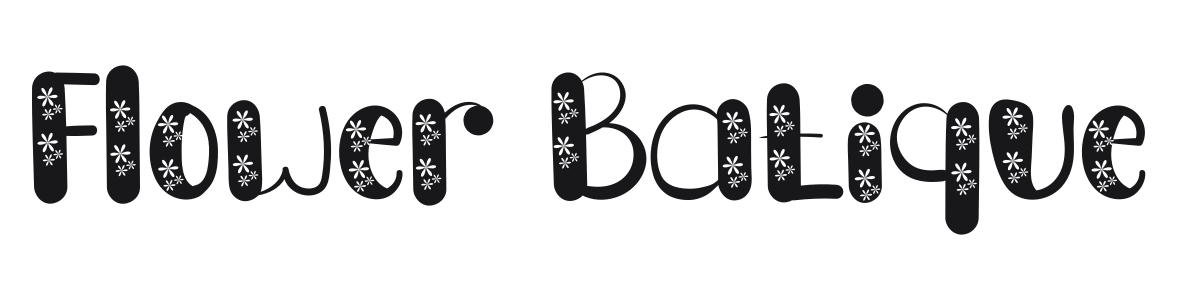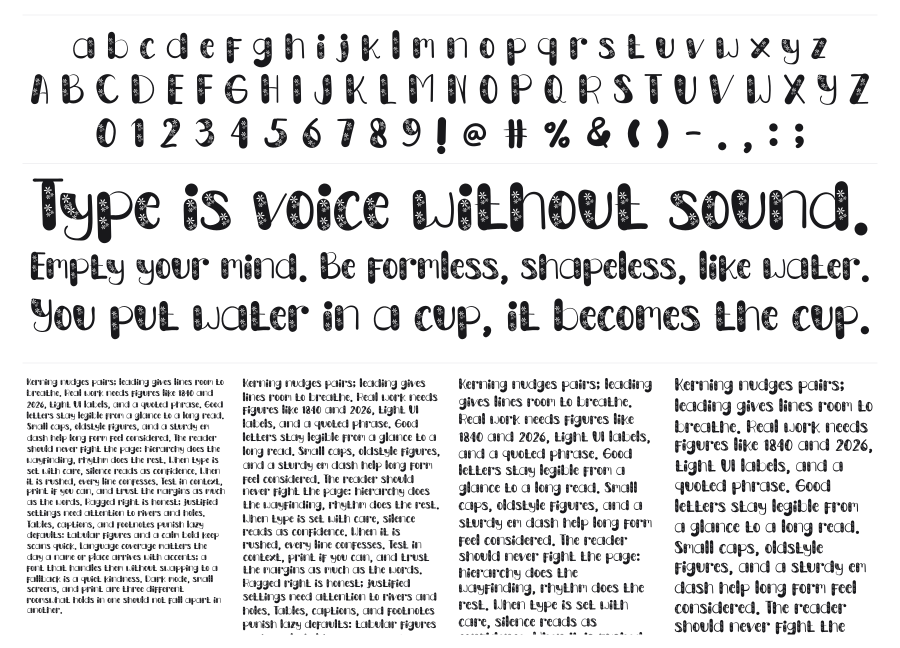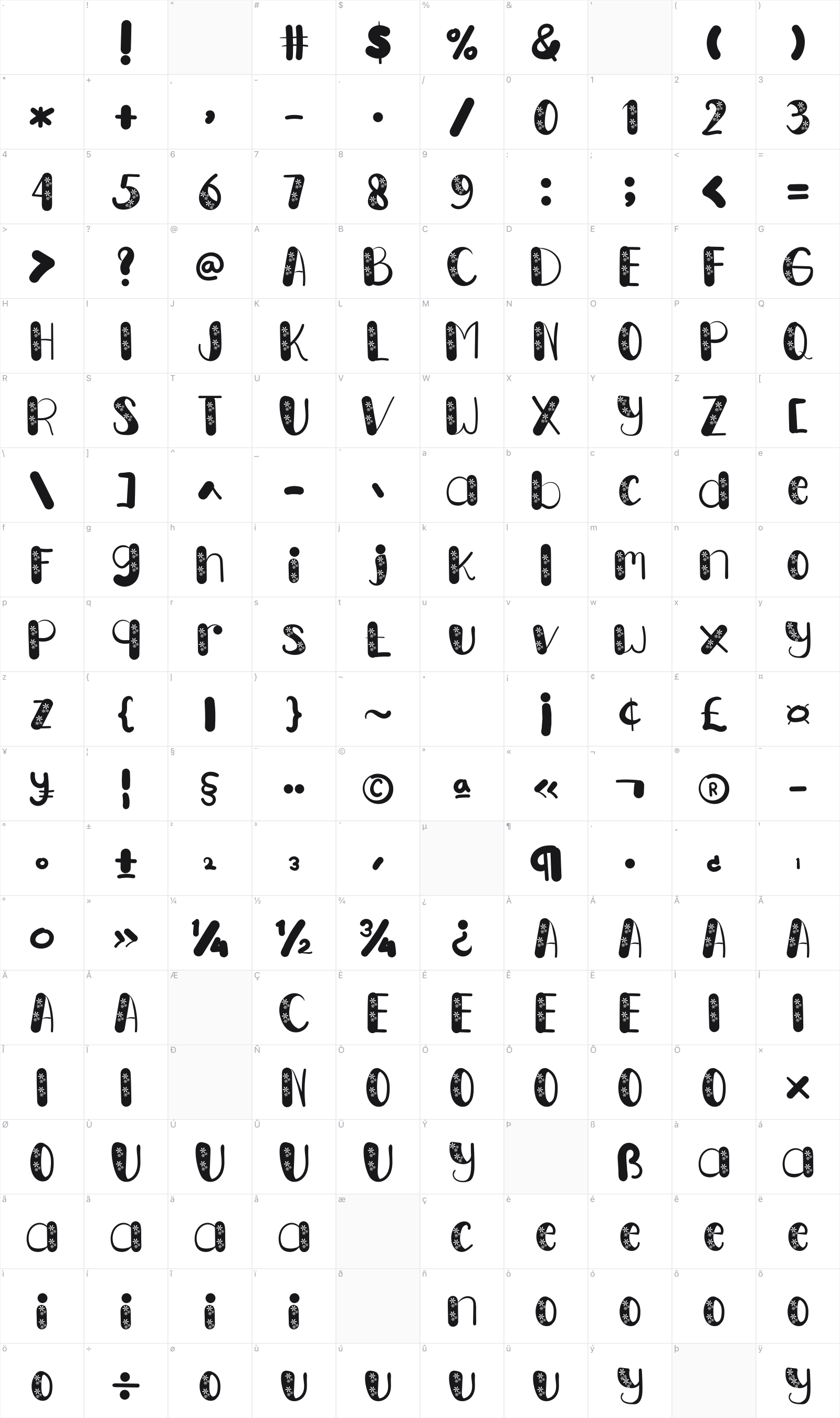
Flower Batique
Flower Batique is a bold rounded display font with small floral batik patterns printed inside each stroke. The combination of chunky pill-shaped terminals and delicate interior ornaments creates an unusual contrast between heavy weight and decorative detail. It works best at large sizes where the floral fill is legible.